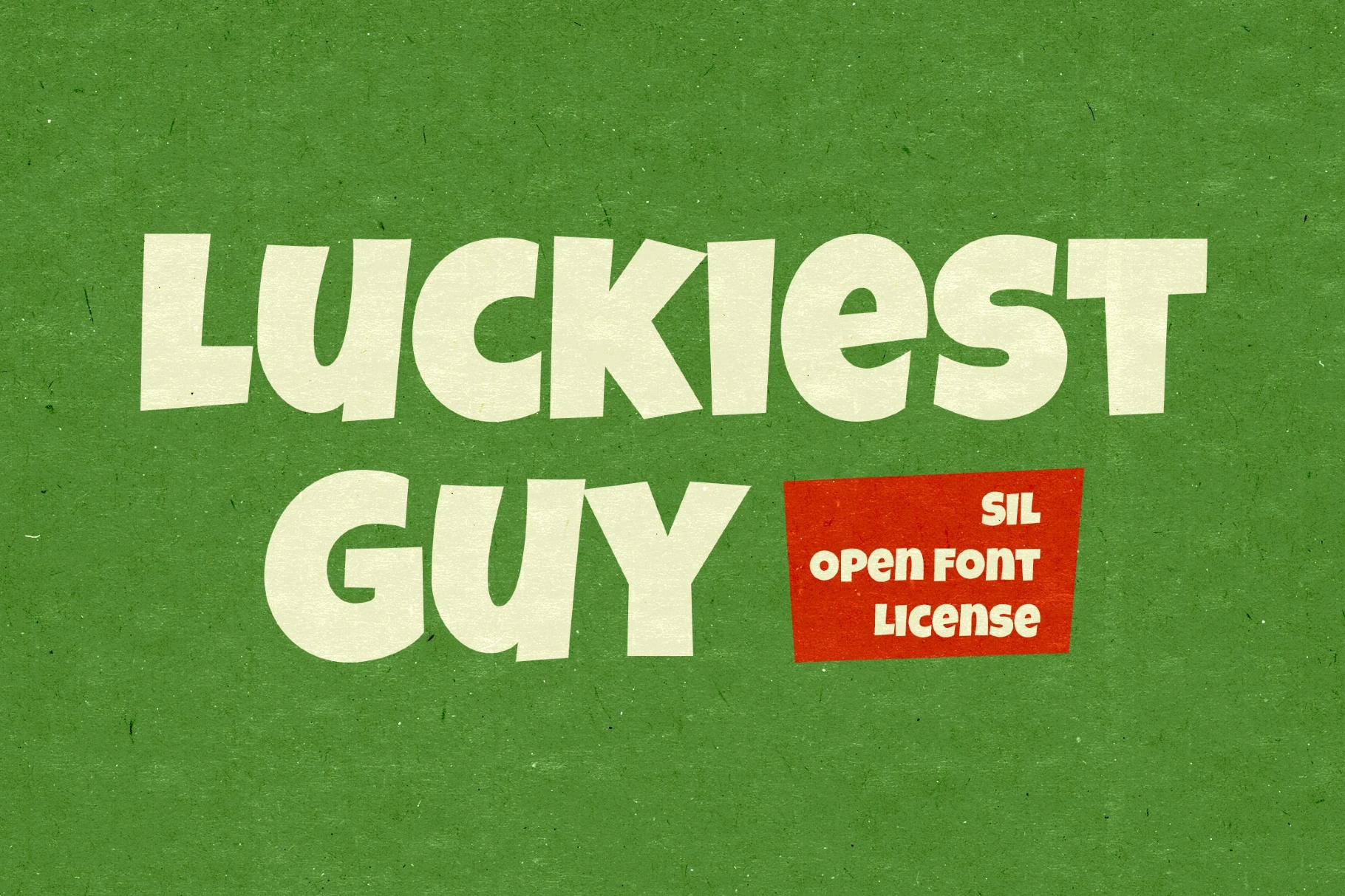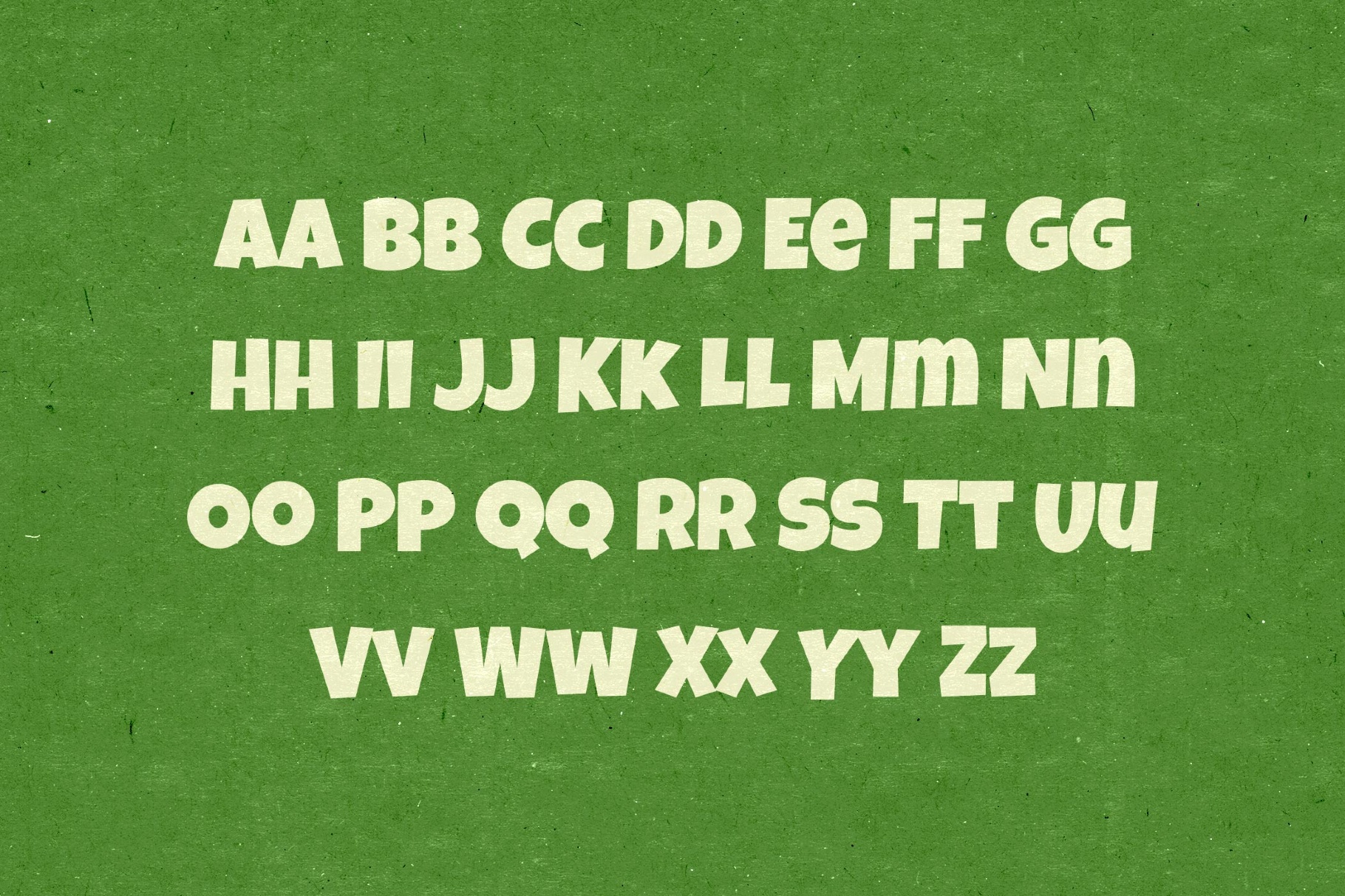
Luckiest Guy Font
LuckiestGuy
Luckiest Guy is a chunky comic font with the boisterous snap of 1950s advertising mascots, Saturday-morning cartoon title cards, and diner signage painted for instant attention, all wrapped in a bright soda-pop mood. The fun-looking type slips easily into poster headlines, snack packaging, kids’ branding, sticker designs, YouTube thumbnails, party invites and summer promo graphics.